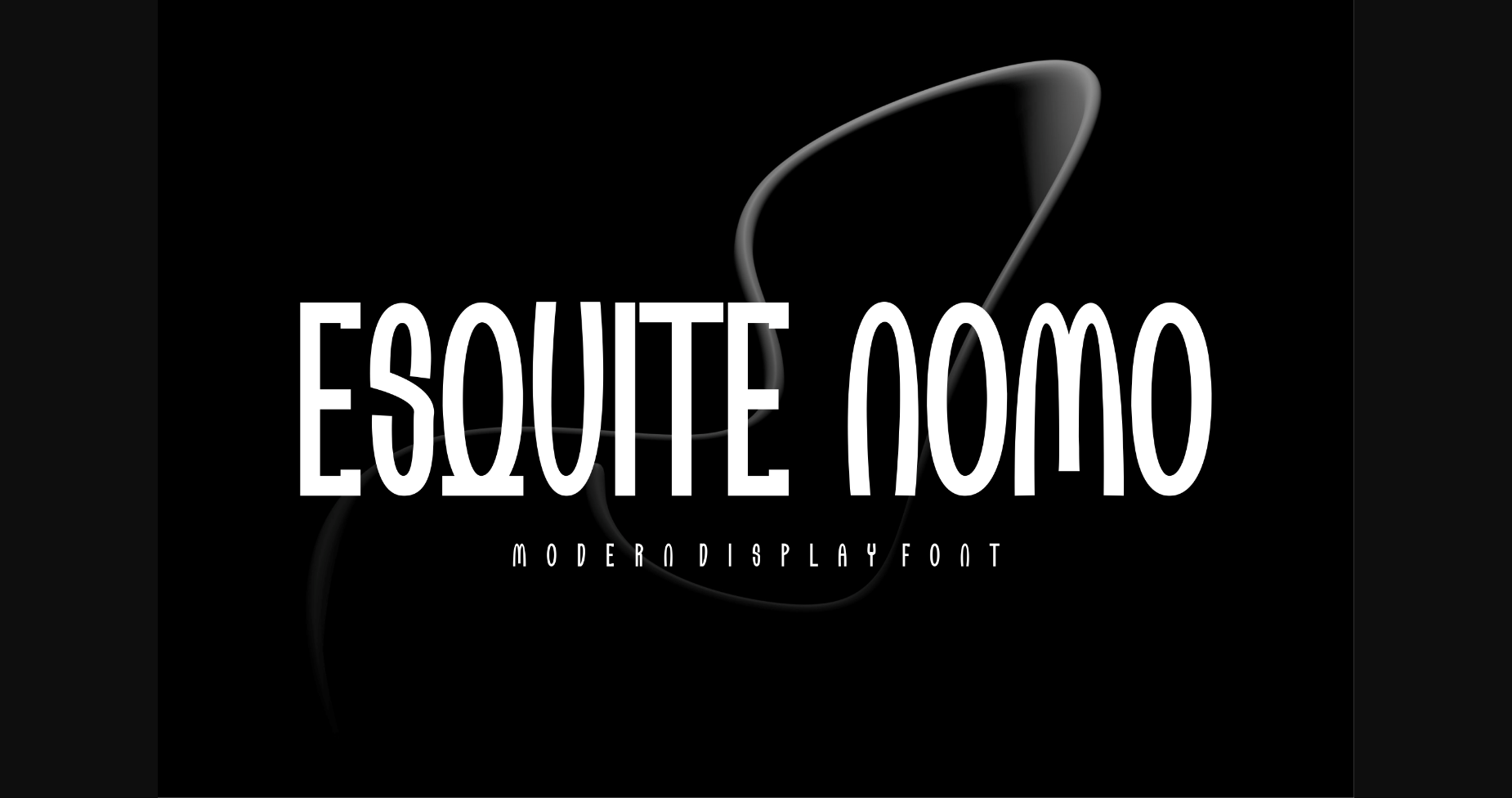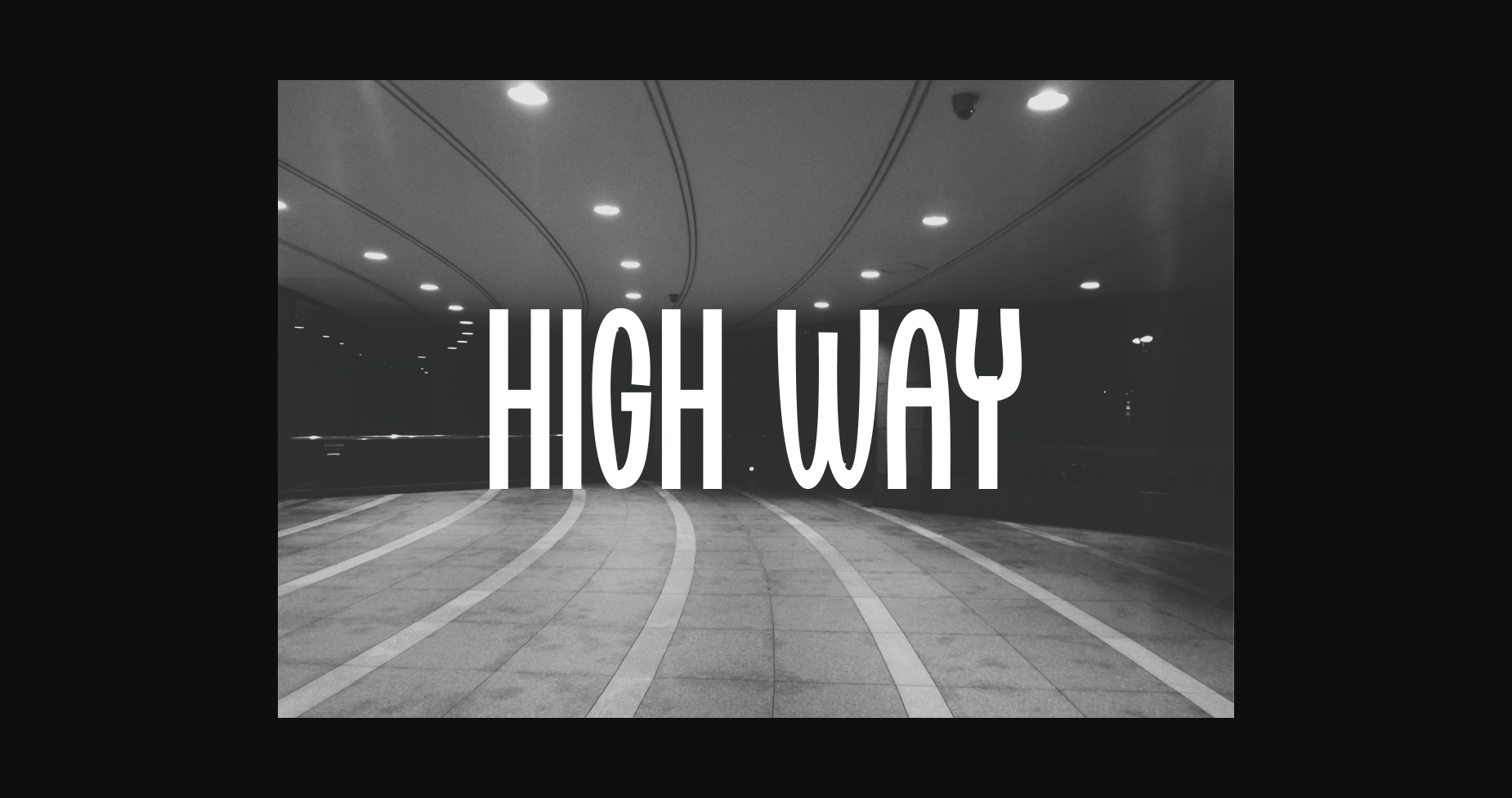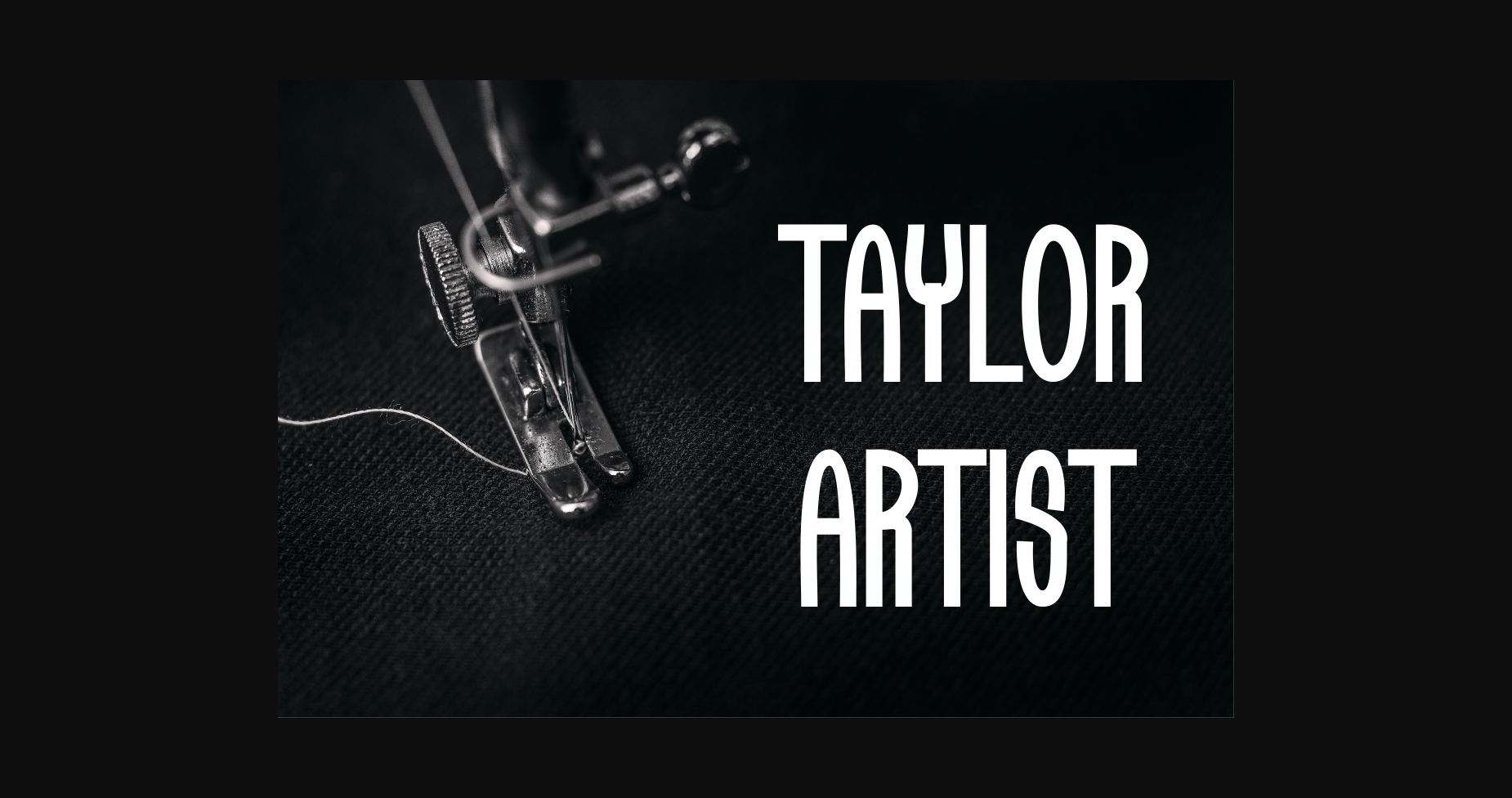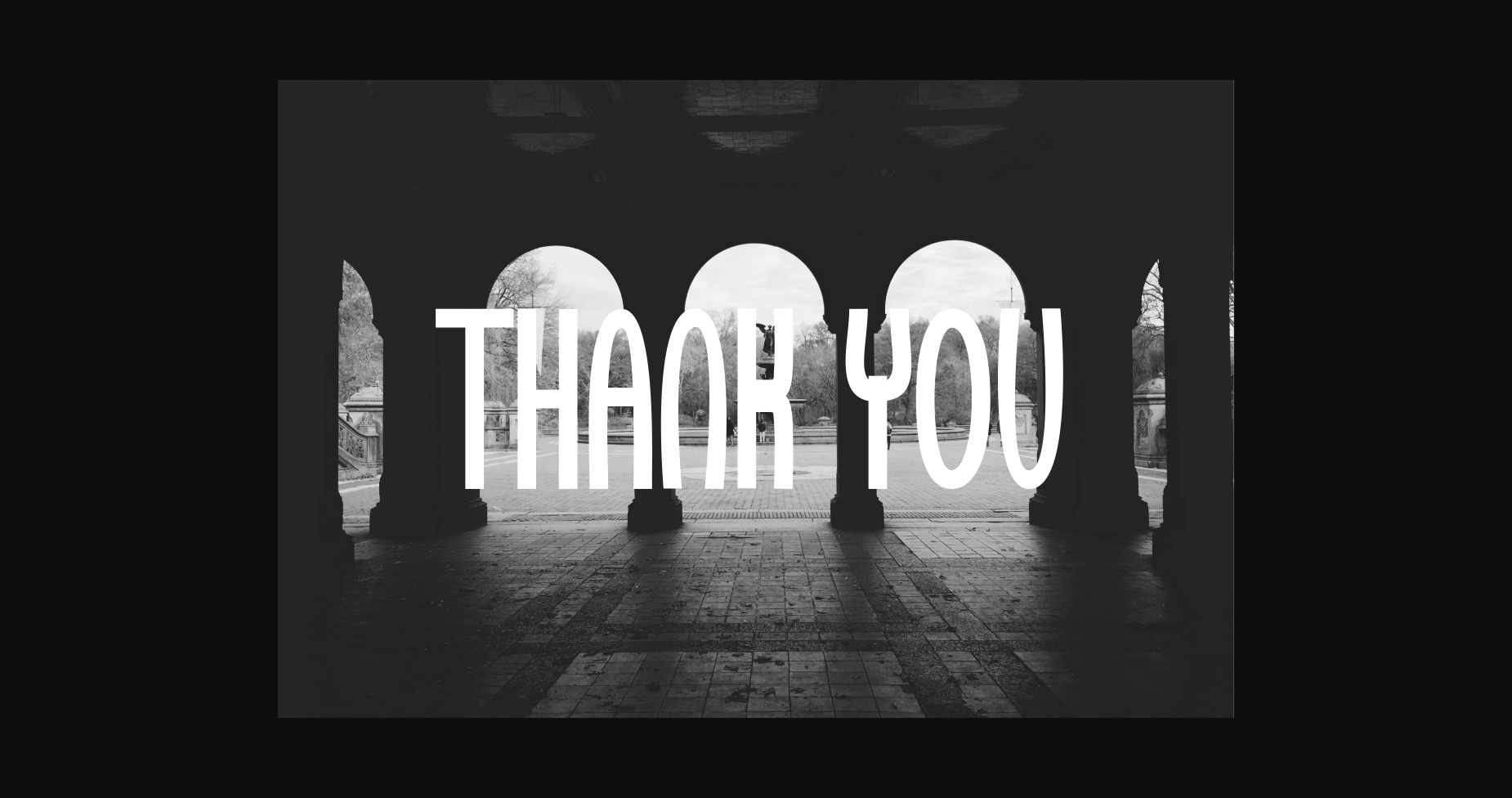
Esquite Nomo Font
About Esquite Nomo Font
Esquite Nomo is a bold and authentic sans serif font with some slab serif accents. The font is suitable for any branding project like logo, t-shirt printing, esports, and many more. It will look outstanding in a wide range of contexts.